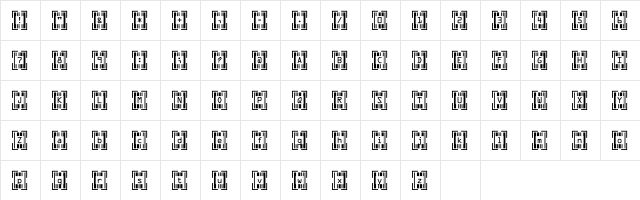
Recognition Regular
Design Context for Recognition Typeface
Recognition is a composed and adaptable typeface that performs quietly and consistently across a wide range of design contexts.